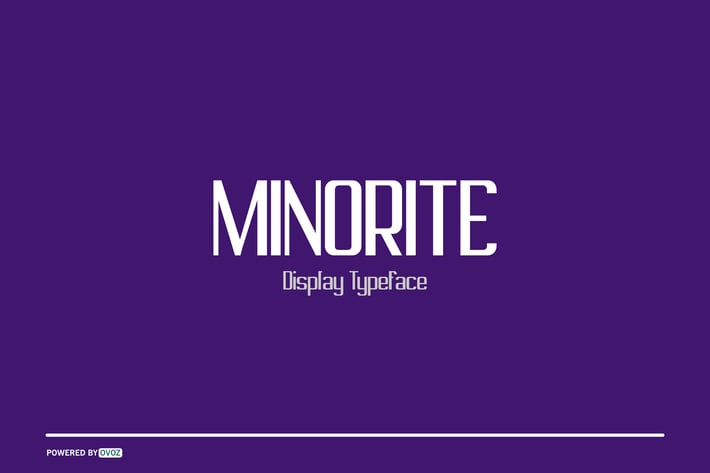
MINORITE DISPLAY TYPEFACE FONT
MINORITE Exclusive Display font, is our new item that suitable for your team logo, or community logo.
Great for Logo, Sticker, Jersey, Invitation Card, Brochure, etc.